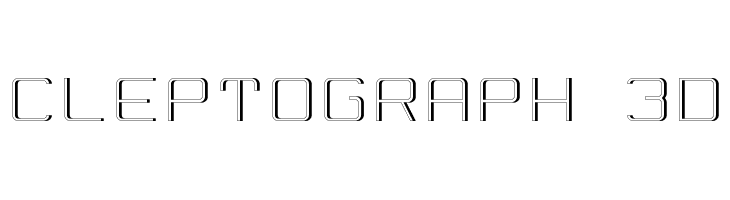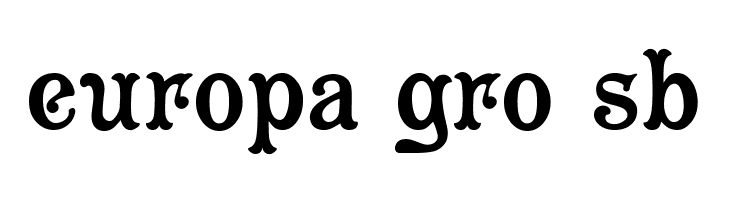
( Out Of Step Font Company - outofstepfontco.com )
A modern, 3D geometric font with a hollow design and consistent stroke widths.
( Paul Lloyd Fonts )
A decorative serif font with calligraphic flourishes and artistic lowercase letters.
A modern, rounded font with a clean, geometric style.
( Billy Argel - billyargel.com/ )
A bold, cursive font with interconnected letters and a modern script style.
A fluid, cursive font with elegant, connected characters.
A sleek, modern font with thin, geometric lines and a minimalist aesthetic.